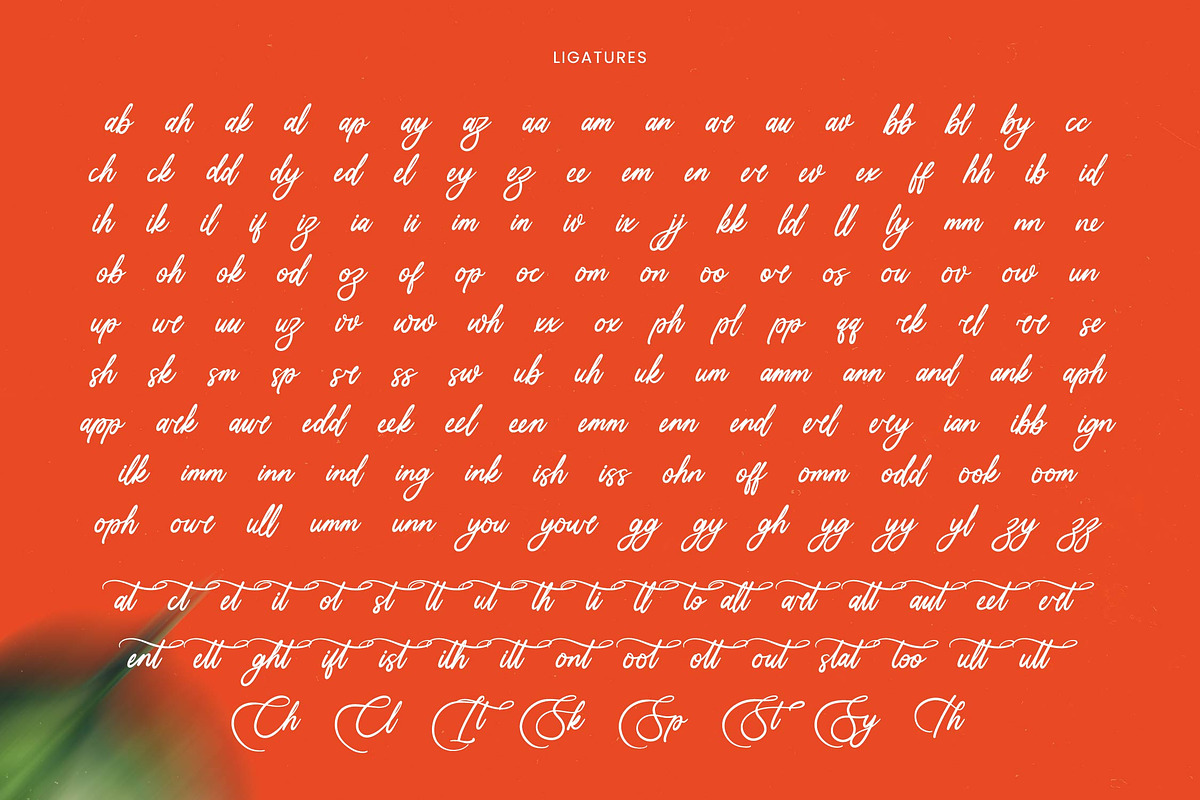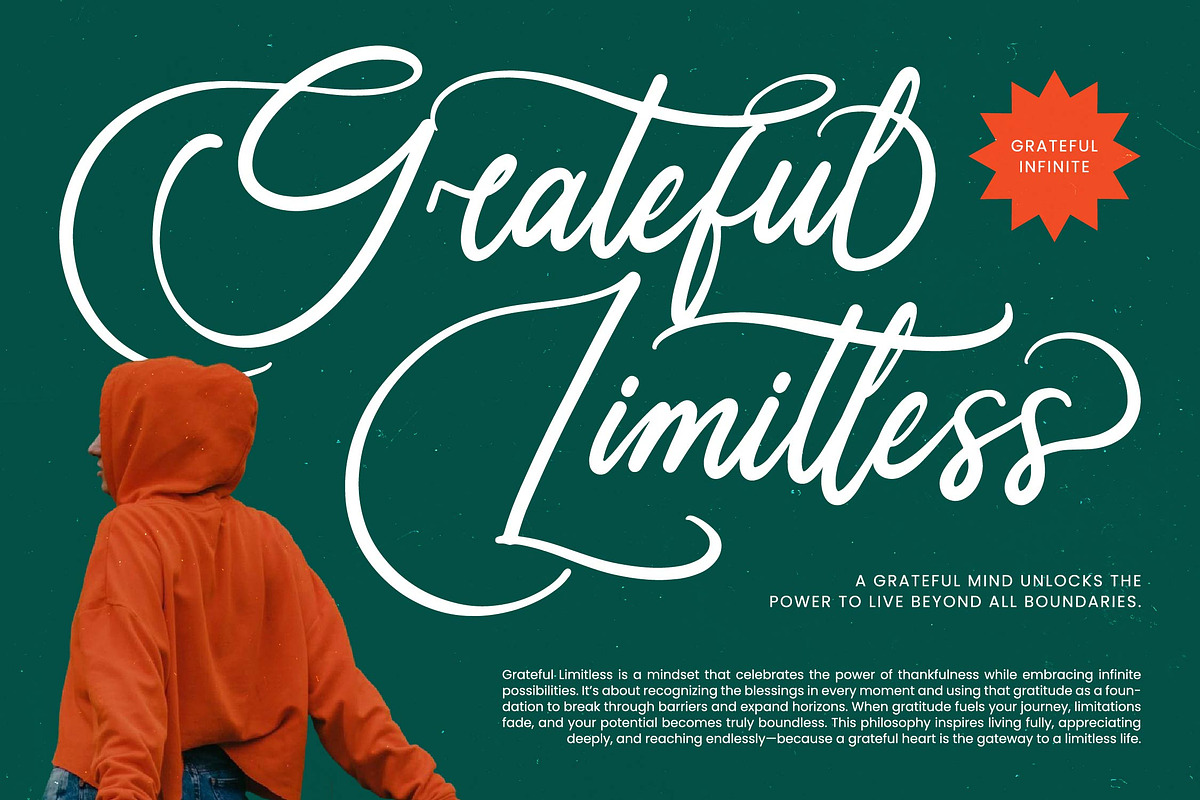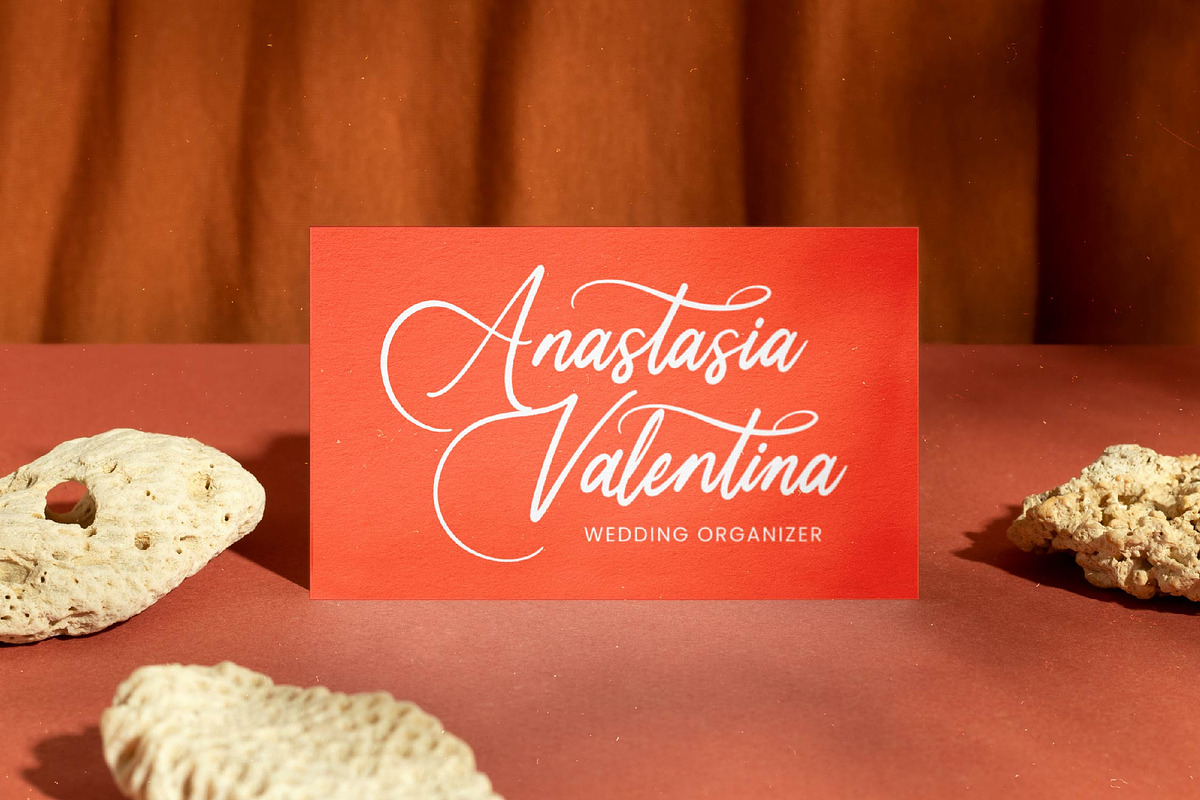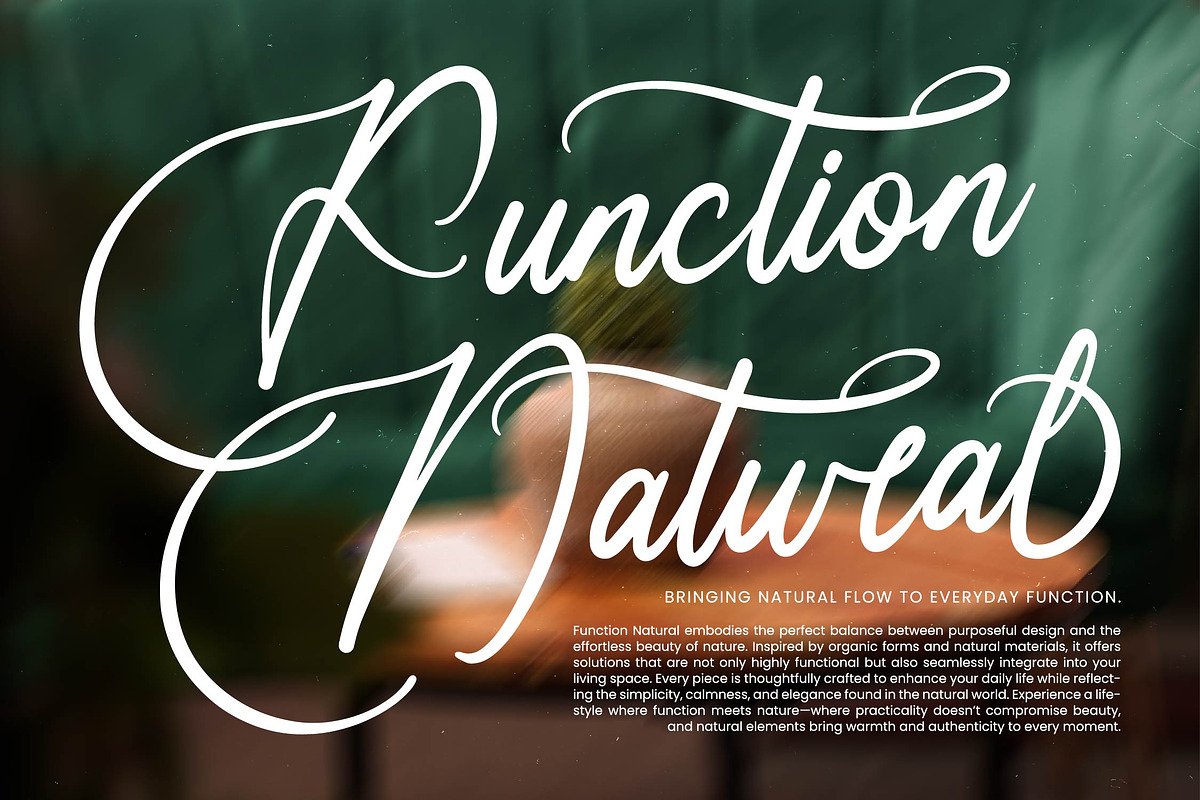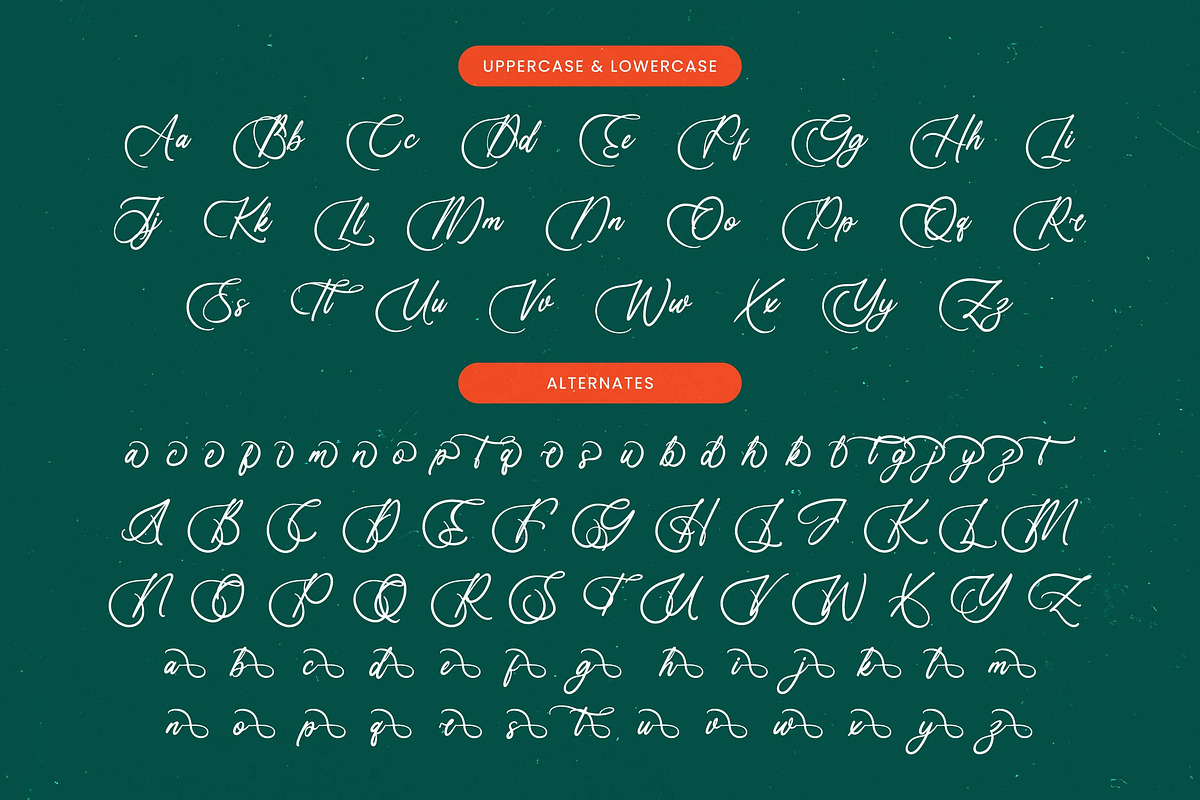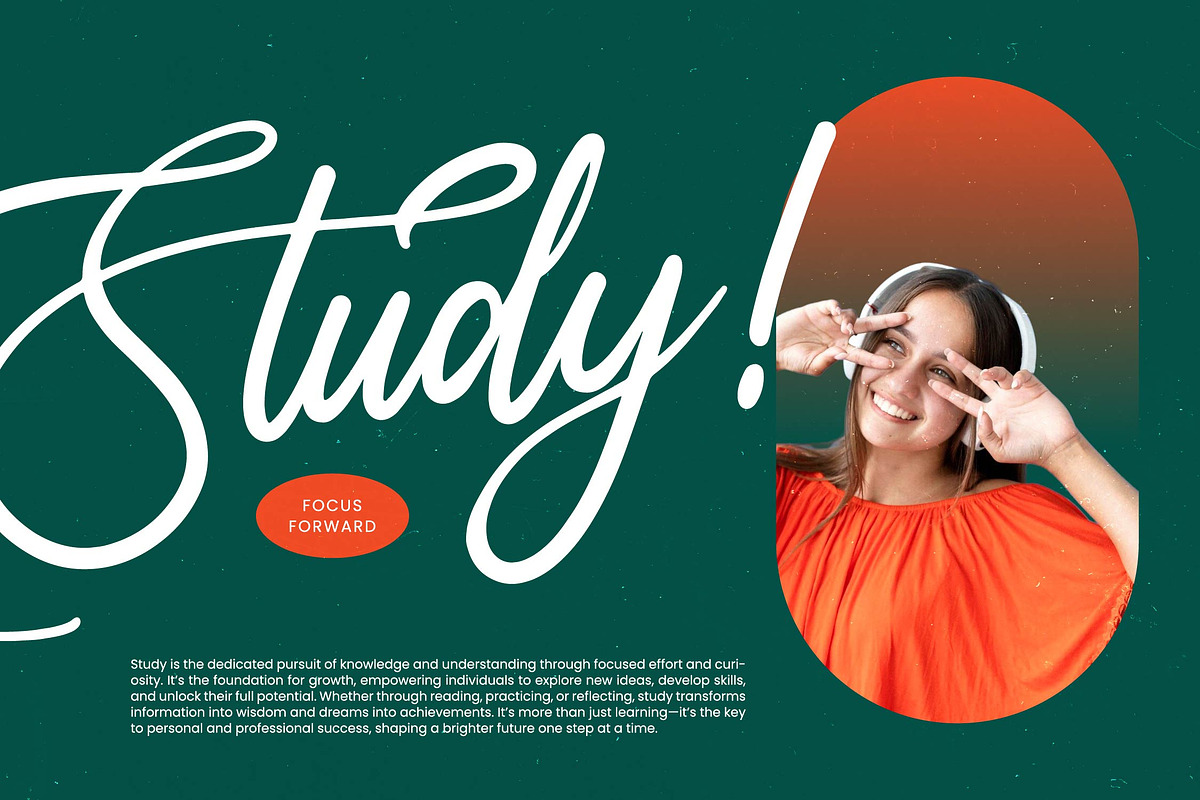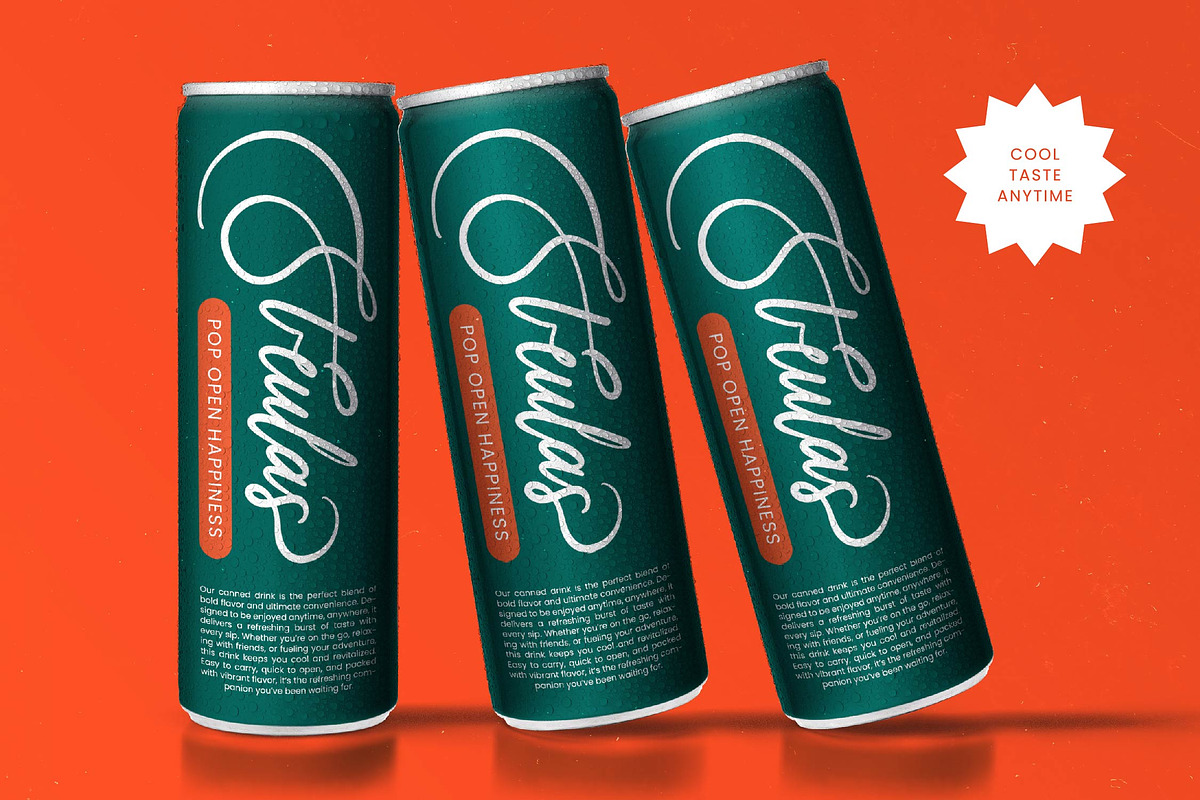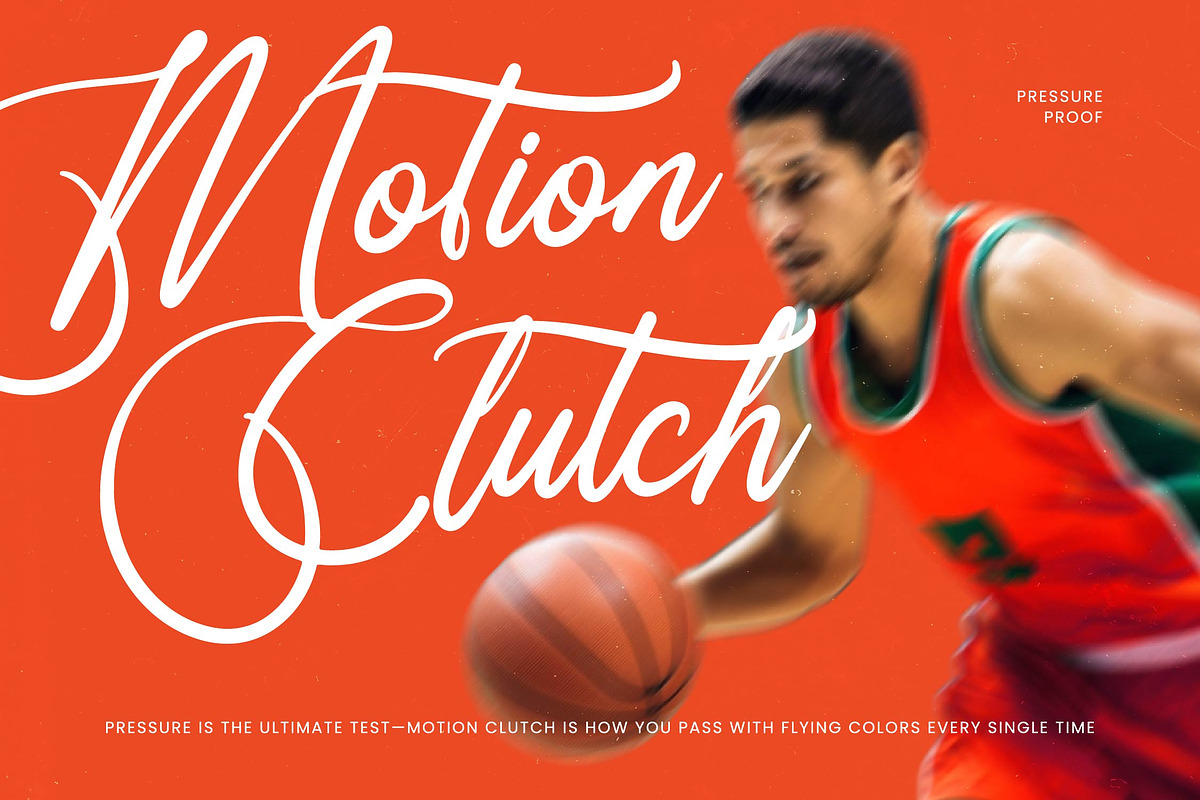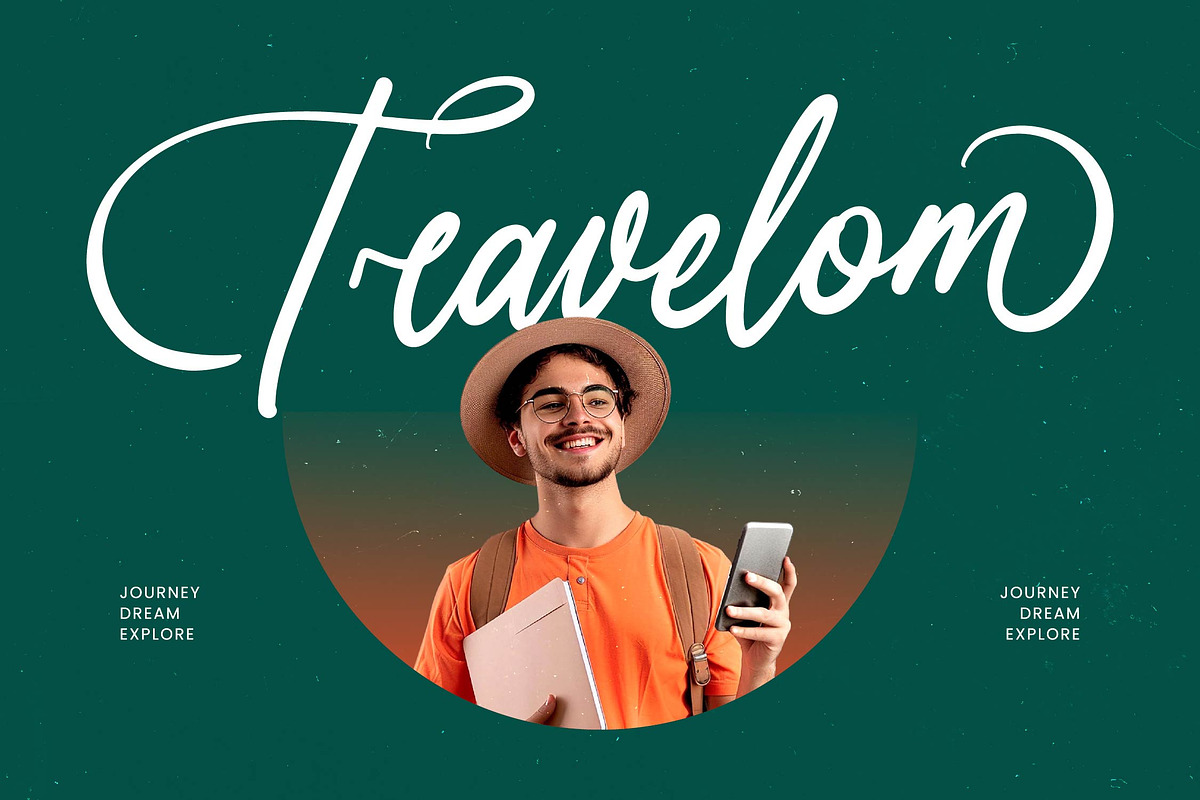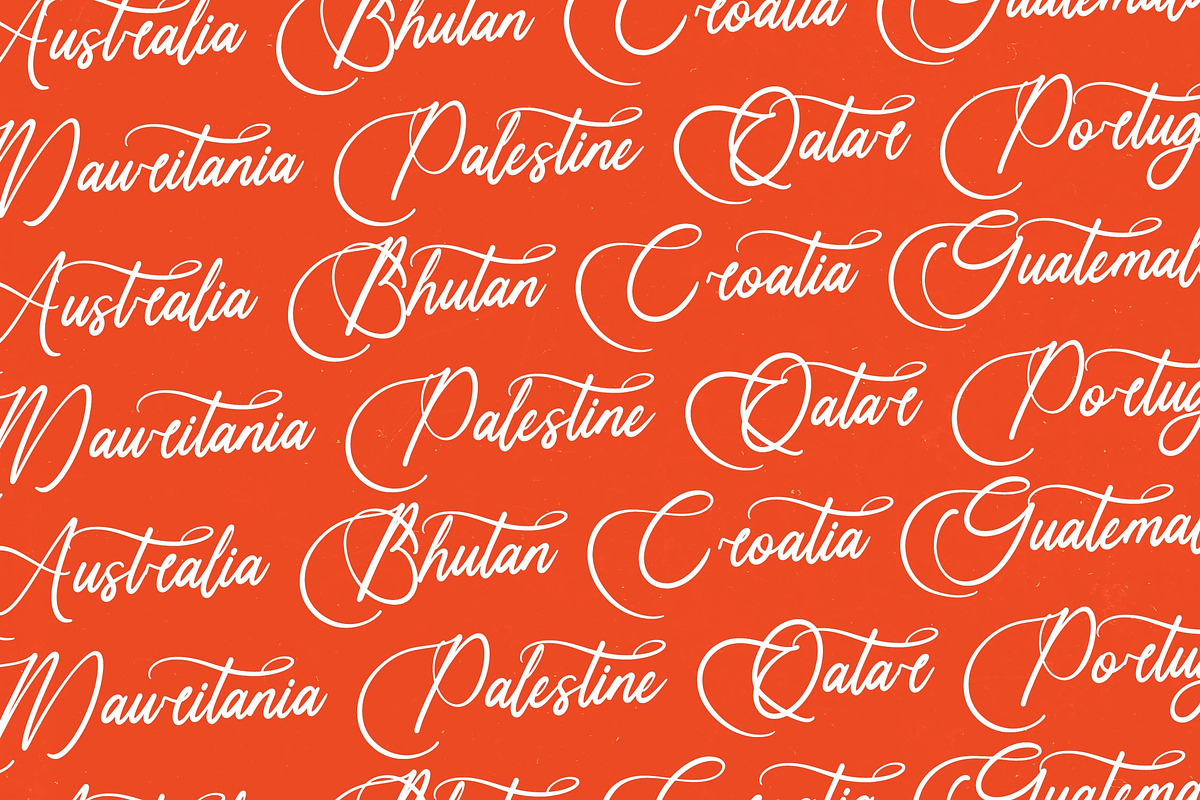
Uniquely Vifanite Bold Calligraphy
Uniquely Vifanite - Bold Calligraphy Font , from Letterena, is a Luxury Script font, suitable for any projects such as: logos, branding projects, homeware designs, product packaging, mugs, quotes, posters, shopping bags, t-shirts, book covers, name card, invitation cards, greeting cards, label, photography, watermark, special events, and all your other luxury and beautiful projects that need a Luxury Script taste.
- 189 Ligature 77 Alternate & 05 Swashes